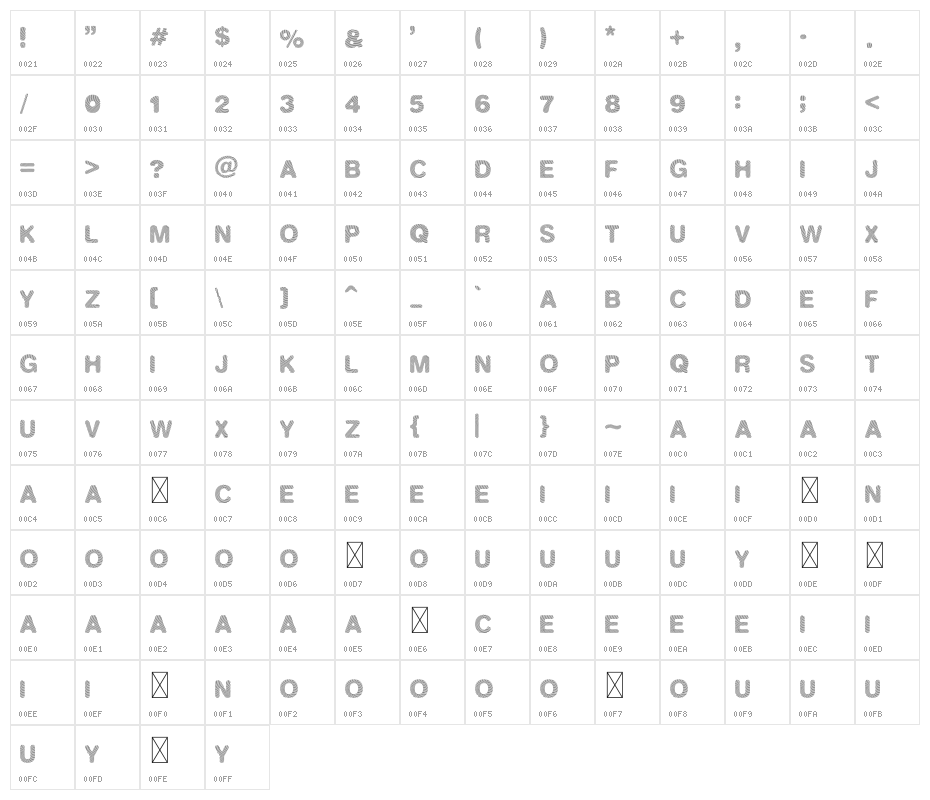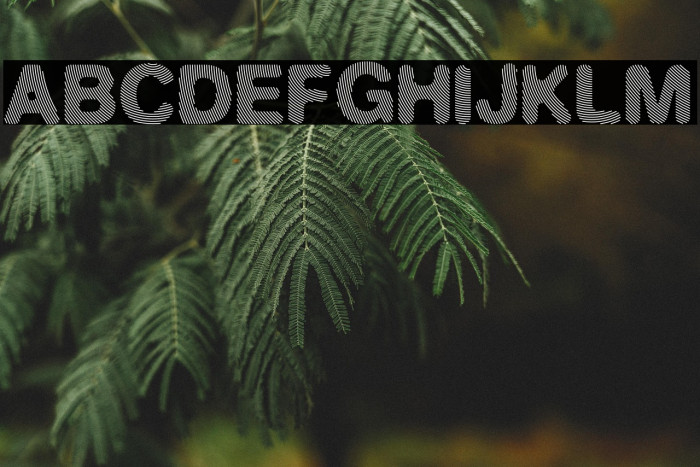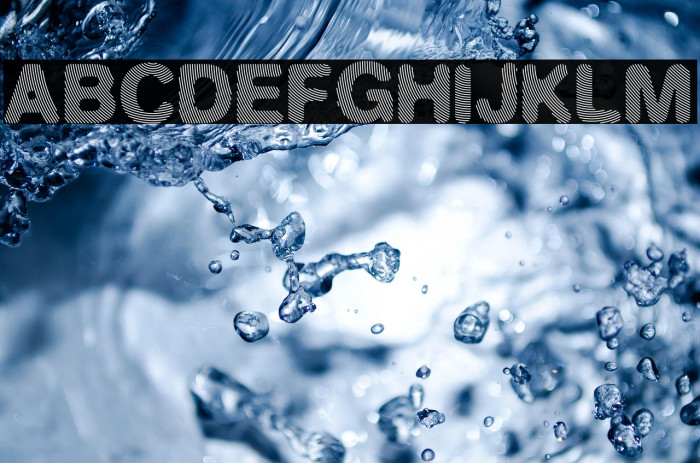
Finger Line Font
Finger Line Description
This font features a unique design with diagonal lines running through each character, creating a textured, striped appearance. The letters are bold and uppercase, with a consistent thickness throughout. The style is modern and eye-catching, making it suitable for creative and artistic projects. The numbers and special characters follow the same design, ensuring a cohesive look across all elements. The font's distinct pattern adds a dynamic and energetic feel, making it stand out in any design context.
| Proposed Projects | Ideal for posters, branding, and creative design projects where a bold statement is needed. |